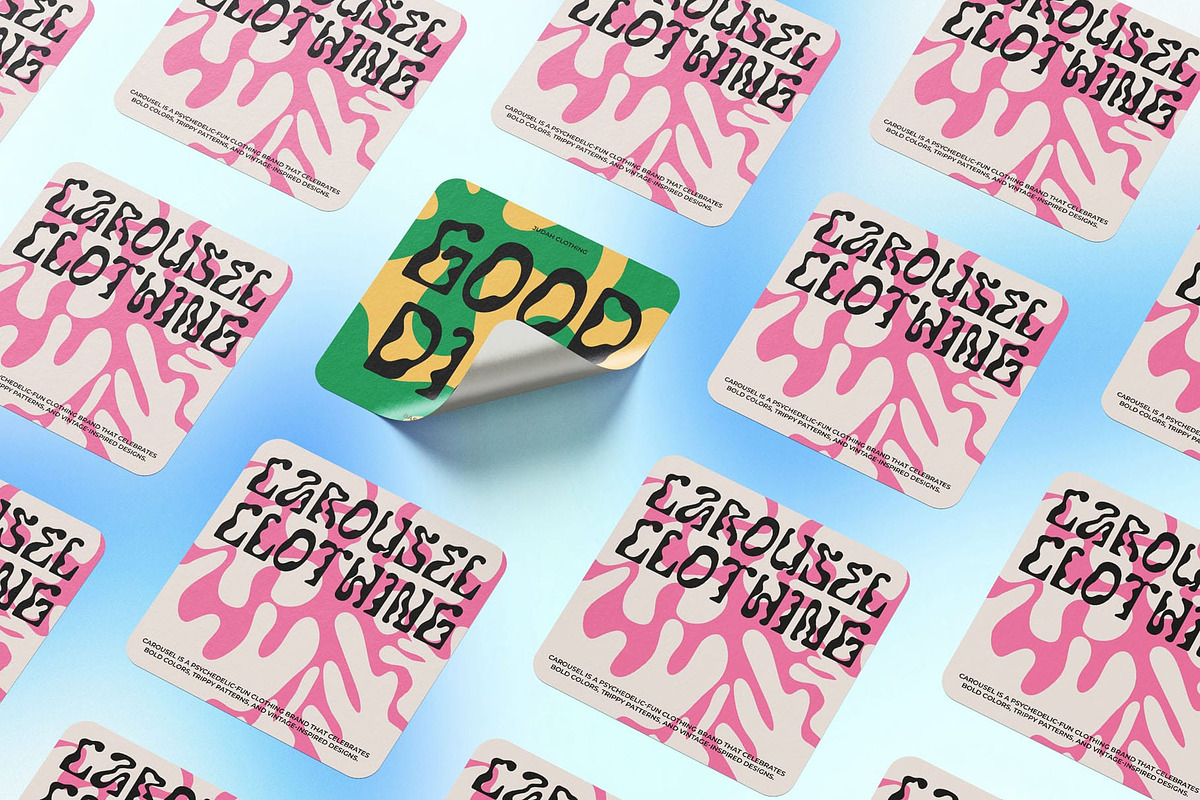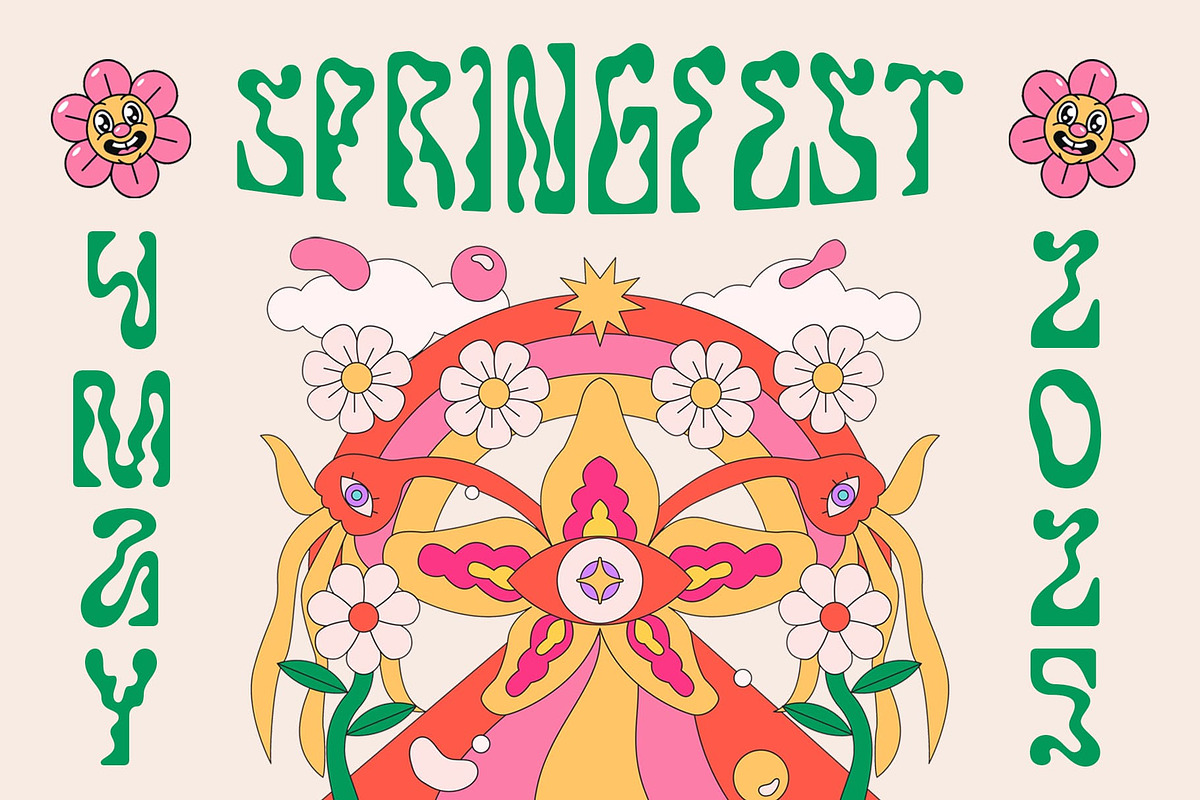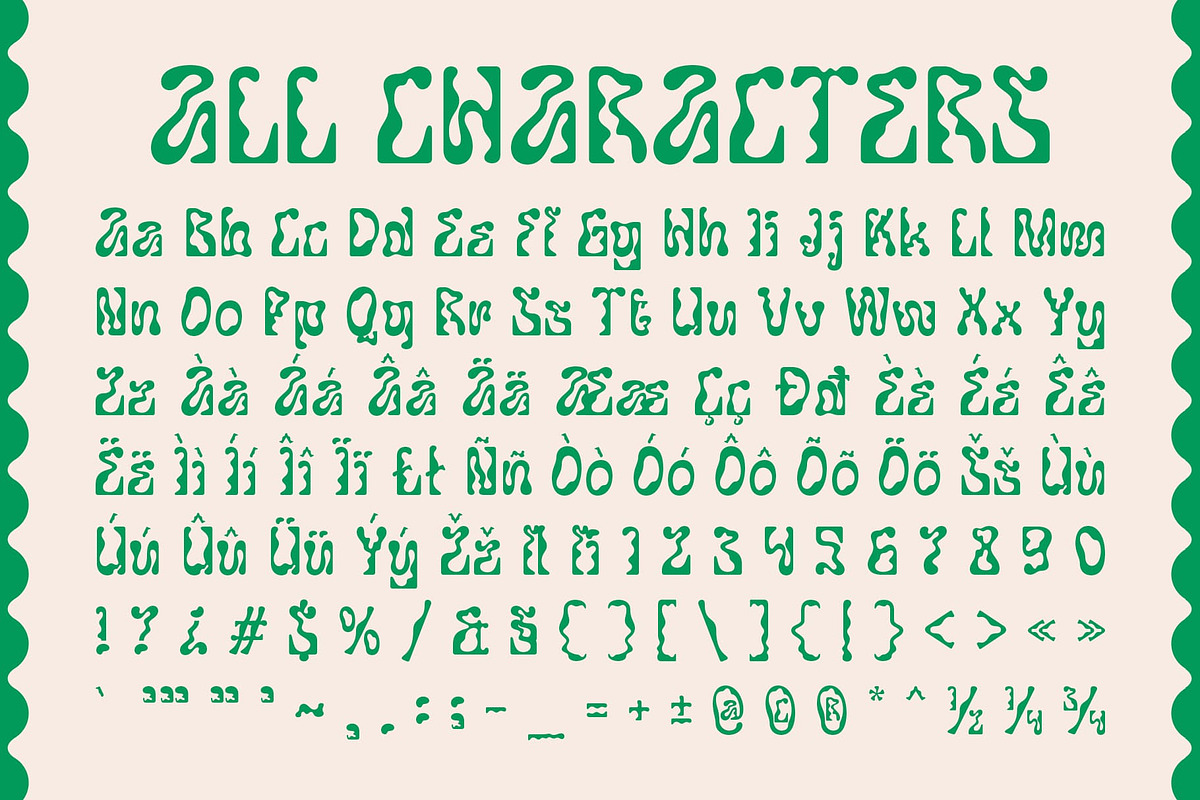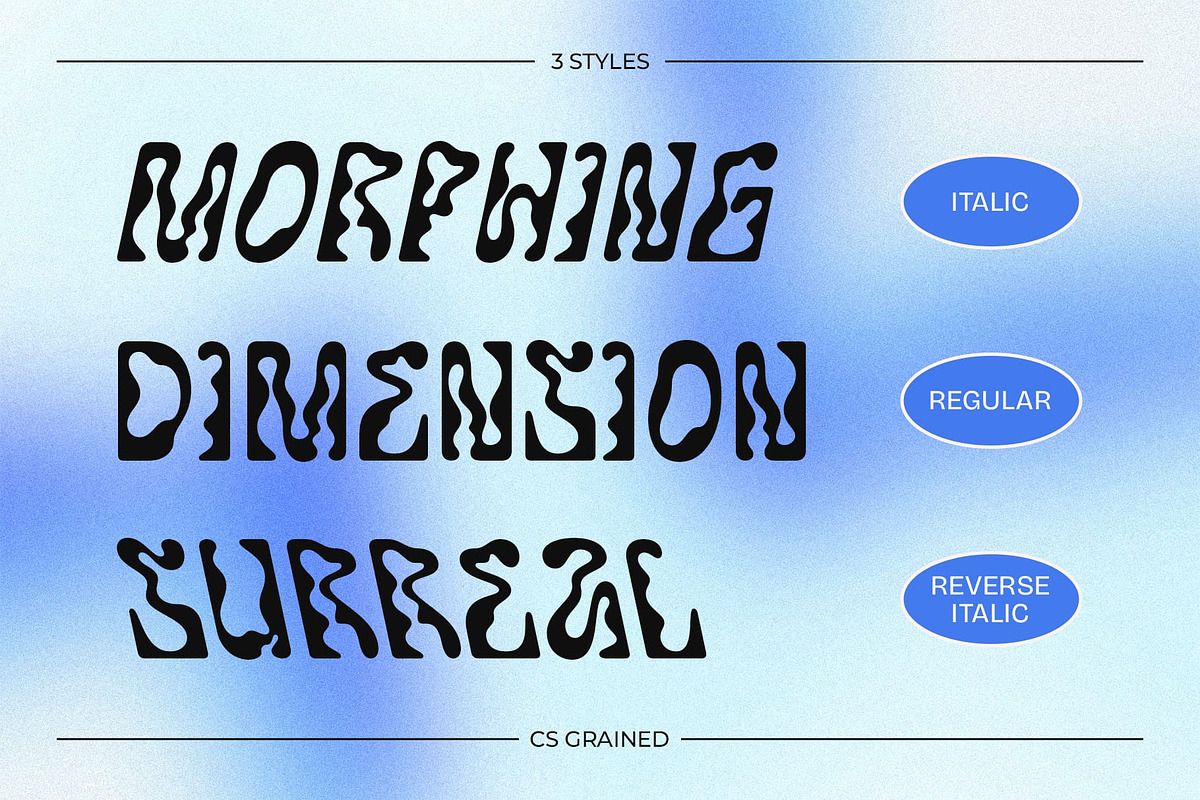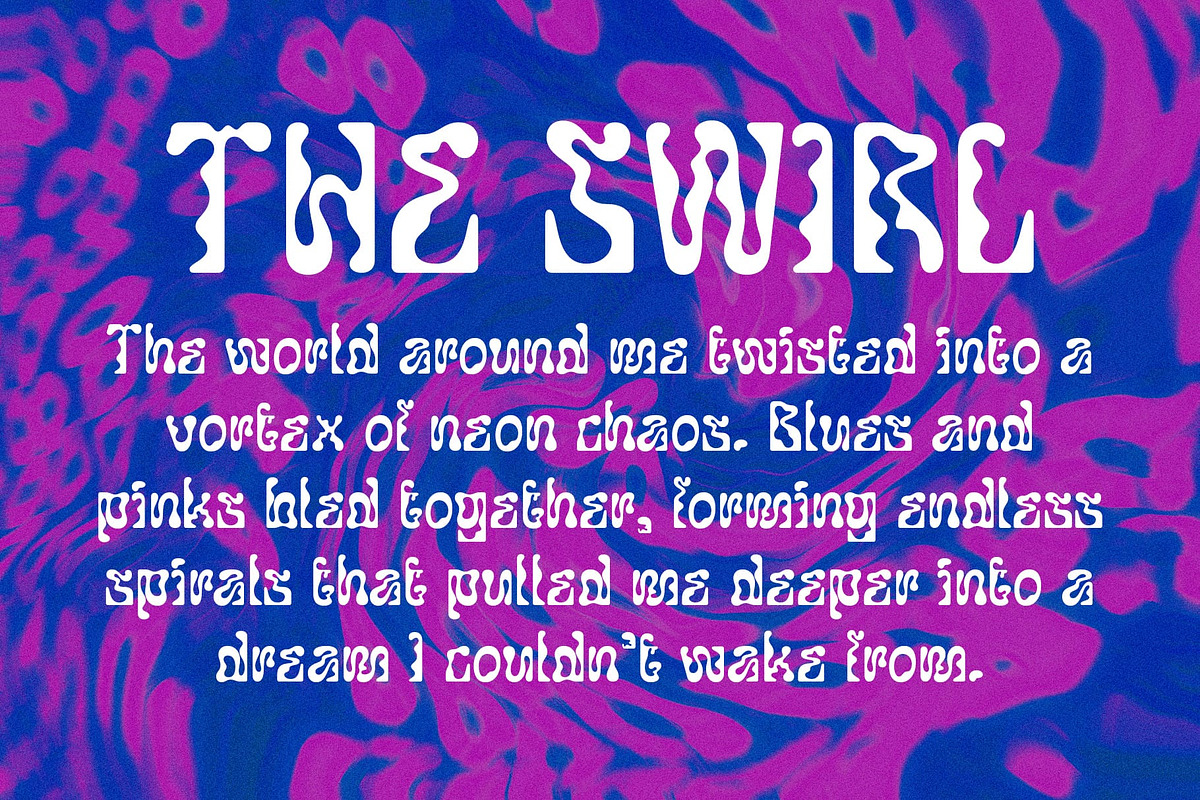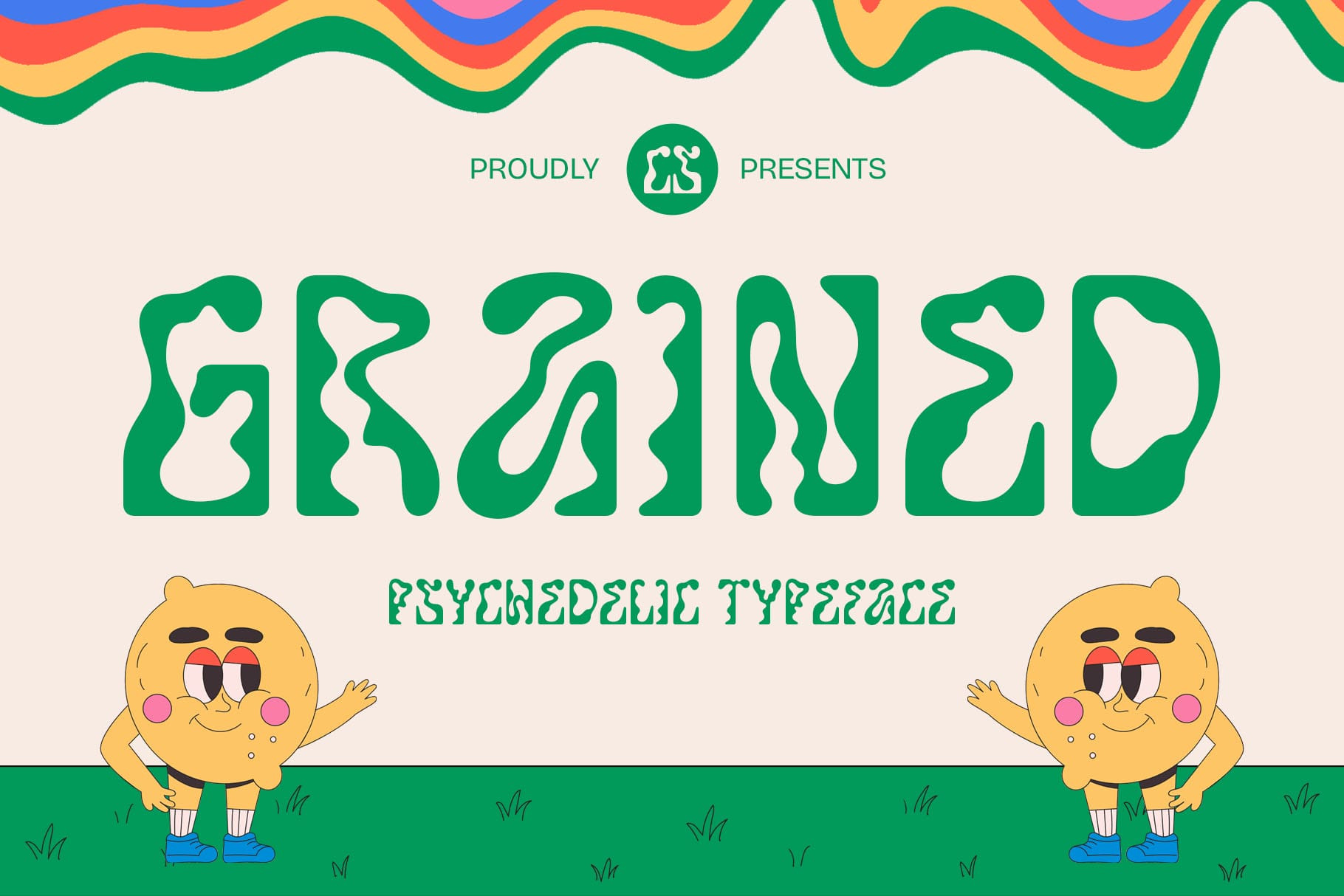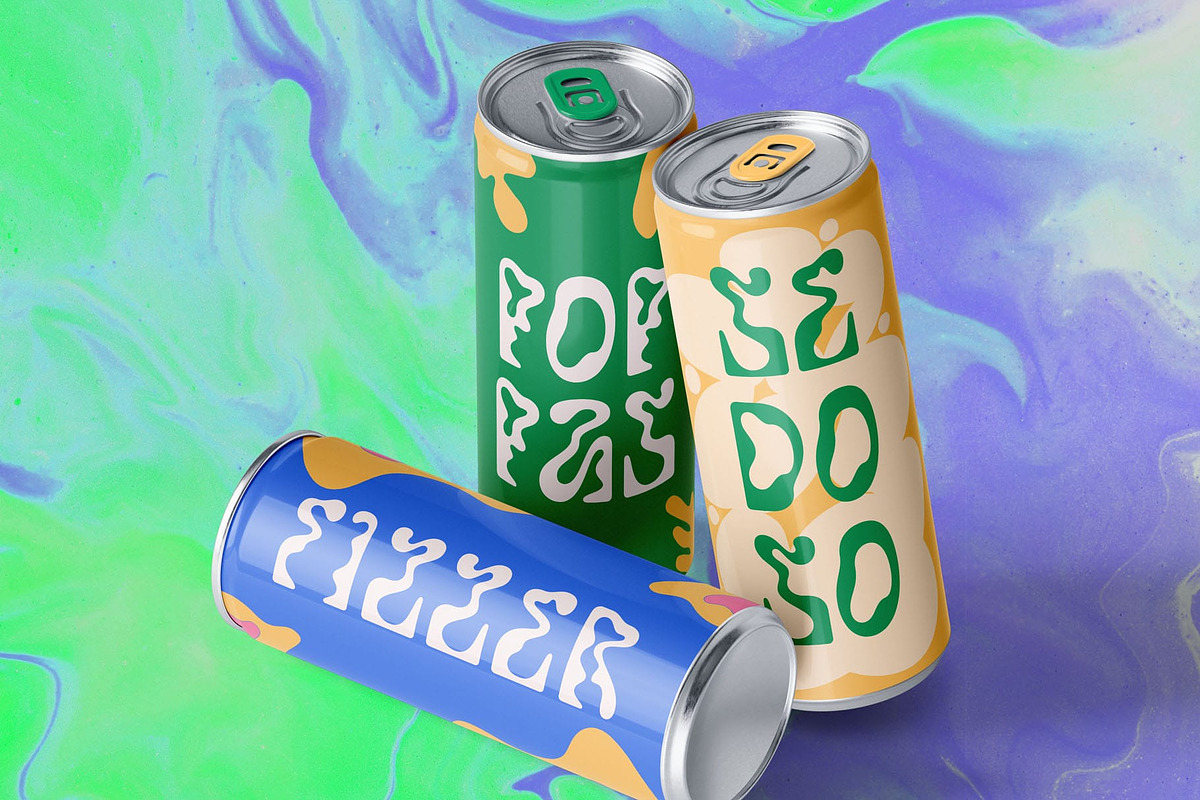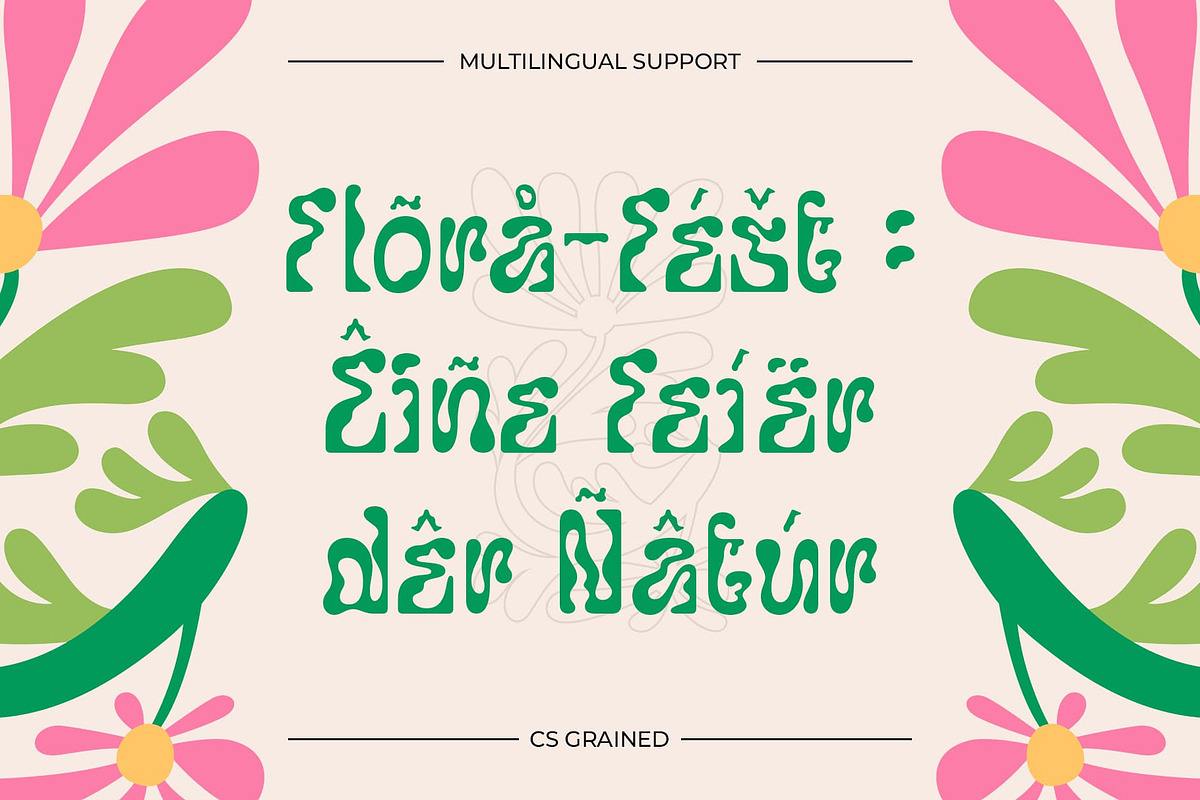
CS Grained – Psychedelic Font
CS Grained Font: A Psychedelic Journey in Typography
Modern Display Font with Psychedelic Energy CS Grained is a bold and expressive display font that captures the essence of psychedelic art and retro futurism. With its fluid, wavy letterforms and experimental shapes, this font radiates a funky, dynamic, and free-spirited energy, making it a perfect choice for bold, attention-grabbing designs.
Curvy, Playful, and Full of Expression Designed with organic curves and unconventional forms, CS Grained delivers a playful and artistic feel. Its flowing, distorted structure adds a sense of movement and spontaneity, making it ideal for music posters, album covers, event branding, and festival visuals. The font’s unique shapes encourage a sense of creativity and fun, ensuring designs stand out with a vibrant and engaging presence.
Retro Meets Modern Psychedelia CS Grained blends vintage psychedelic aesthetics with modern design sensibilities, creating a font that is both nostalgic and forward-thinking. Its warped, hypnotic look evokes the free-spirited energy of the ‘60s and ‘70s, while its refined structure ensures versatility for contemporary projects.
Perfect for Bold and Creative Projects Ideal for posters, packaging, digital media, and branding, CS Grained is designed for designers who dare to be different. Its expressive personality and psychedelic flow make it a great choice for projects that need to radiate fun, movement, and individuality.